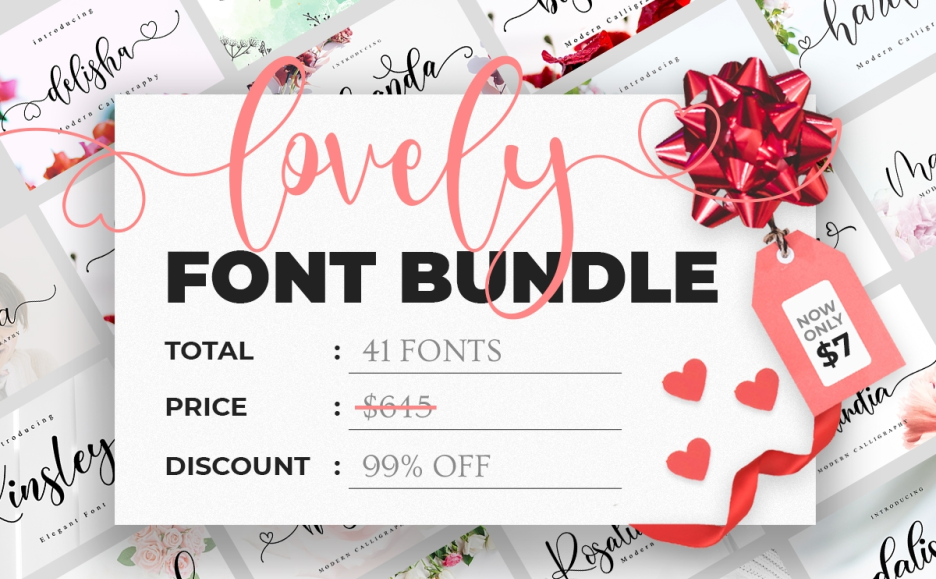
Lovely Font Bundle
The Lovely Font Bundle is a curated collection of beautifully crafted fonts designed to elevate your creative projects. This bundle includes a variety of font styles, from elegant script fonts to modern sans-serif options, allowing for versatile applications across different mediums.
• Multiple font styles: script, serif, sans-serif, and display fonts.
• Various weights and styles for each font, ensuring flexibility.
• 10 unique font families with multiple weights.
• Bonus decorative elements to complement your designs.
• Styles: Regular, Bold, Italic, and more.
Ideal for branding, logos, web design, print materials, and user interfaces. Combine different styles from the bundle for a unique and cohesive look.